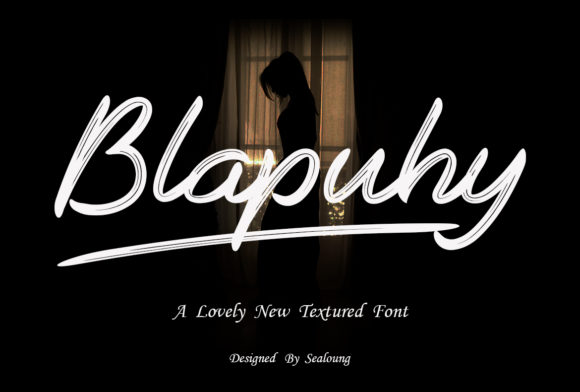
The Blapuhy Font: A Lovely Handwritten Delight for Creative Projects
I’ll never forget the time I was working on a wedding invitation project, and I just couldn’t find the perfect font to capture the romantic, whimsical feel my client was looking for. I scoured the internet, tried out dozens of fonts, but nothing seemed quite right. That was until I stumbled upon Blapuhy – a gorgeous handwritten font that instantly won me over with its authentic, brush-pen feel.
An Honest Review of Blapuhy
What I Love About Blapuhy ✨
- 💕 Authentic, handwritten feel that’s perfect for creating personal and emotional connections with your audience
- 🎨 Beautifully crafted with a brush pen, giving it a unique, artistic touch
- ✅ Highly versatile and can be used for a wide range of creative projects, from wedding invitations to social media posts
- 📚 Easy to read and understand, making it perfect for body text and captions
While Blapuhy is an amazing font, it’s not without its quirks. For example:
- 🤔 Some letters may appear a bit inconsistent in terms of size and spacing, which can be a bit challenging to work with if you’re used to more traditional fonts
- ⚠️ The font may not be suitable for very small text sizes or captions, as some details may get lost
The Story Behind Blapuhy
Blapuhy was designed with the help of a brush pen, giving it a unique, artistic feel. According to its designer, the goal was to create a font that felt authentic and personal, like a handwritten letter from a friend. And I think they succeeded!
Q: What kind of projects is Blapuhy best suited for?
A: Blapuhy is perfect for creative projects that need a personal touch, such as wedding invitations, stationery, social media posts, and greeting cards.
Q: Is Blapuhy easy to read?
A: Yes, Blapuhy is generally easy to read, making it perfect for body text and captions. However, some letters may appear a bit inconsistent in terms of size and spacing, so it’s best to use it at larger text sizes.